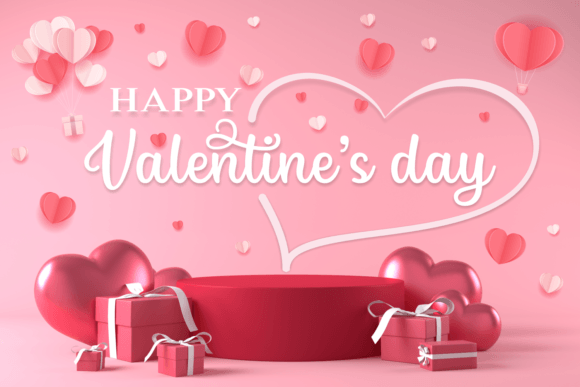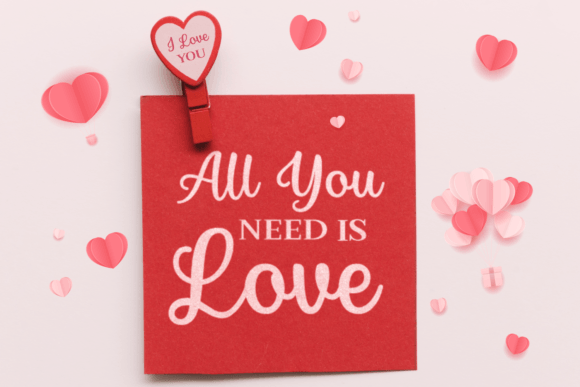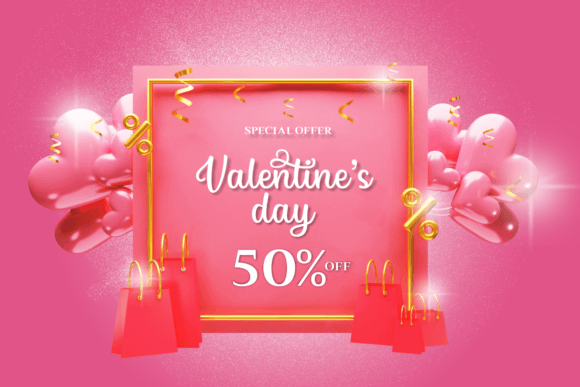
Introduction to Higle Font
Higle is a handwritten font designed in a friendly and lovely style.
It would be awesome for your diary planner and journal which you are able to use every day, and also your perfect projects such as back to school, weddings, party decoration, invitations, festivals, posters, blogs, clothing, child-related designs, greeting cards, social media posts or anything that needs a friendly touch Add it now to your fonts library, and it will bring any of your DIY projects to life.